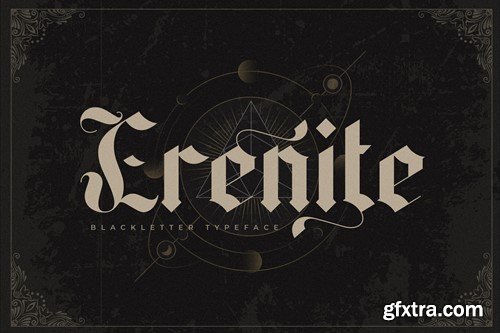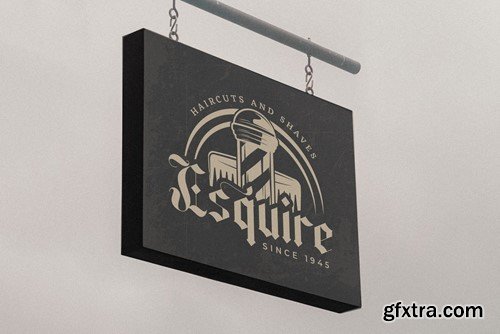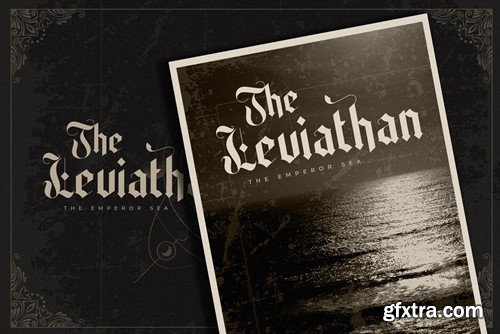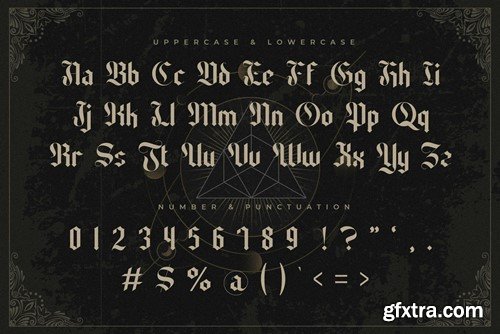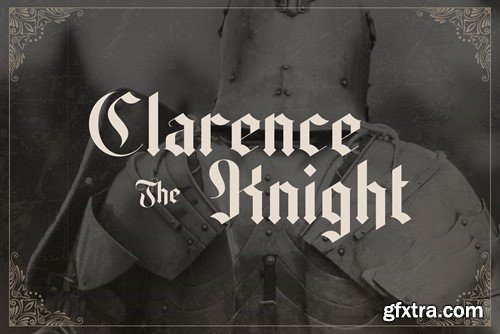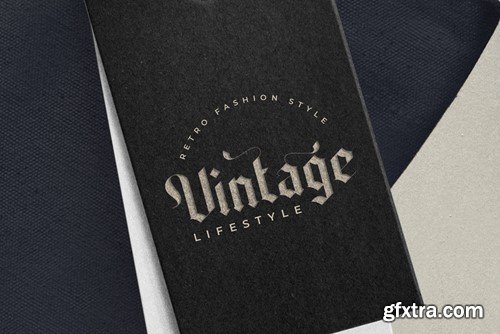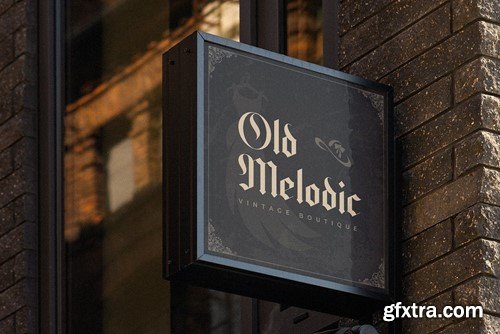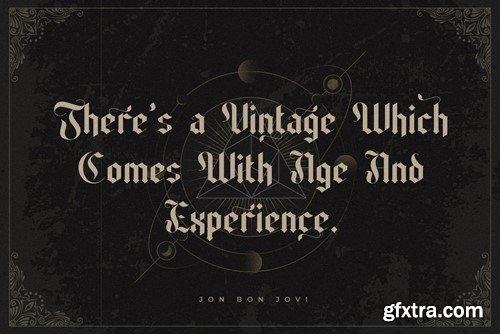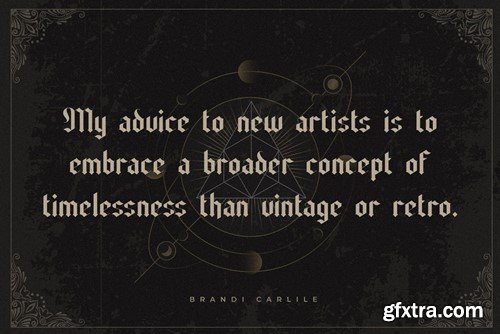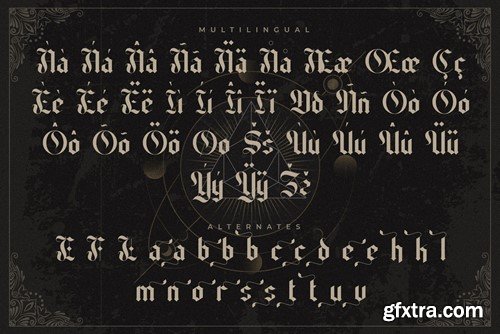
Erenite - Blackletter Font 6NEPGMN
Erenite - Blackletter Font
Erenite is an incredibly authentic and daring blackletter font. Add this font to your favorite creative ideas and notice how it makes them stand out! Erenite Blackletter is an incredibly authentic and daring blackletter font. Its stylish alternations and ligatures make this font the perfect partner for any project.
• Ligature
• Uppercase and lowercase
• Numbering and Punctuation